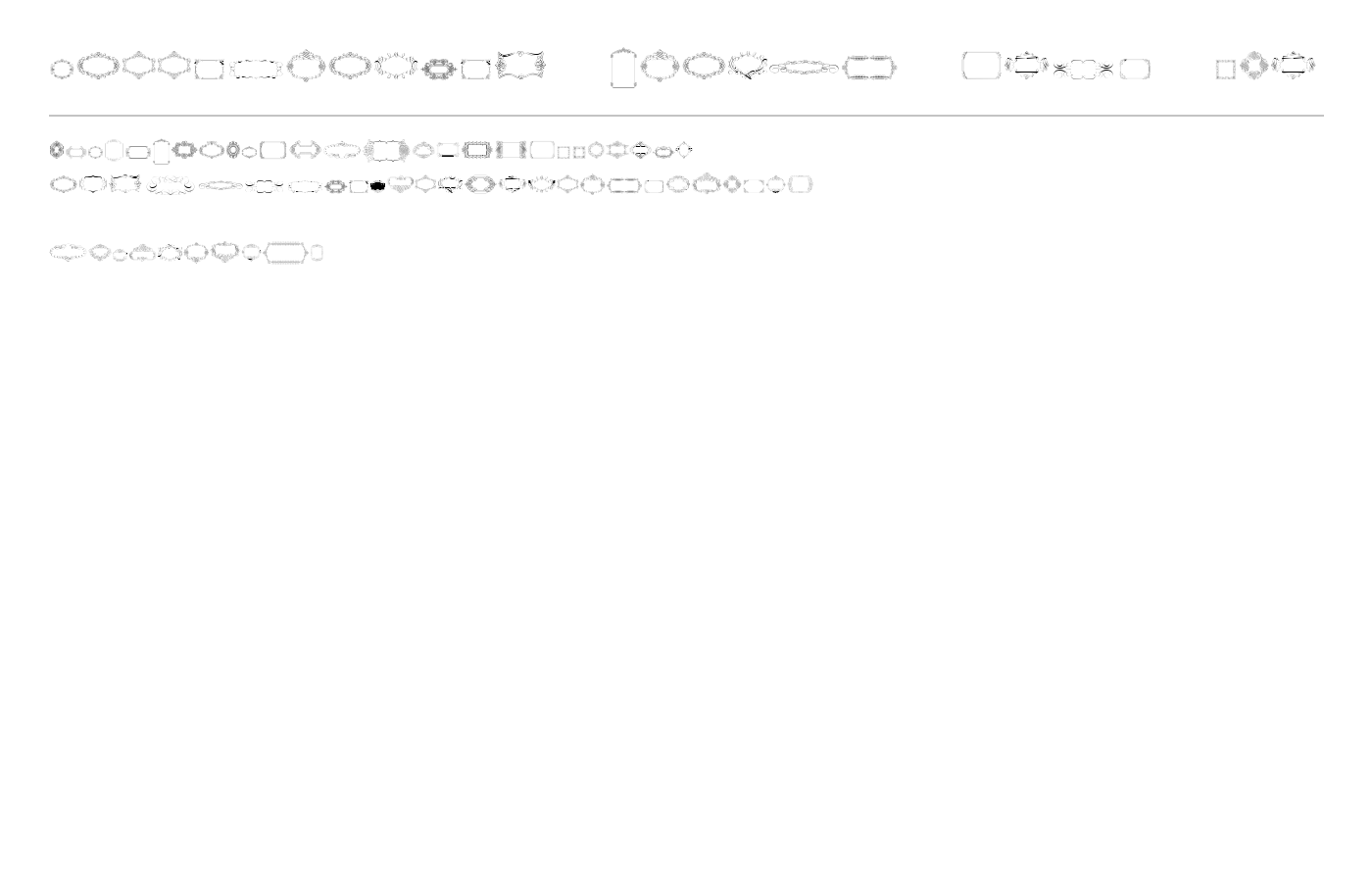
Calligraphic Frames Soft Two is an elegant decorative font featuring delicate, hand-drawn ornamental frames and borders with smooth curves and soft edges. Its intricate, vintage-inspired style makes it perfect for invitations, packaging, and branding projects that seek a refined and classic touch. This font works best when used as an accent or decorative element to add sophistication and charm to any design.
Calligraphic Frames Soft Two Font
About Calligraphic Frames Soft Two Font